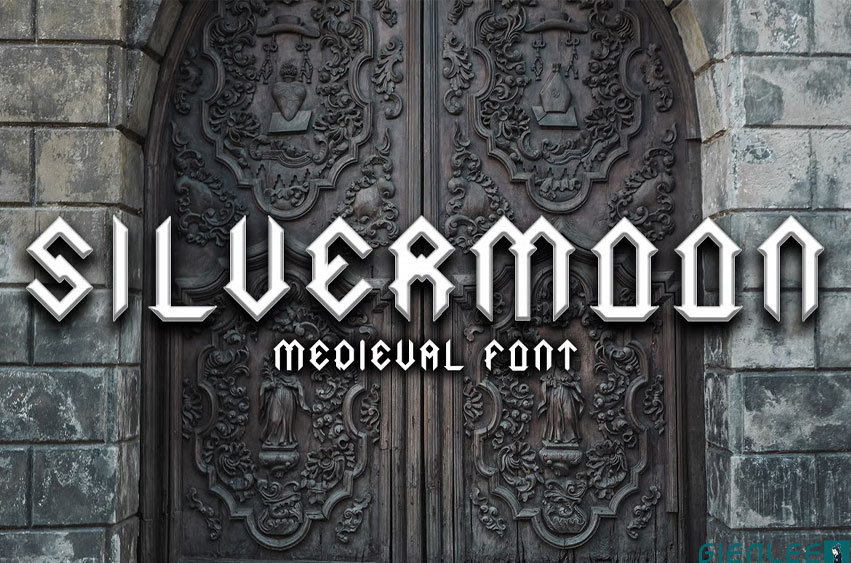
Silvermoon Medieval Font
Silvermoon Medieval Font is Medieval Font. Commonly used for middle ages those combined with the beauty of crystal and silver stone.